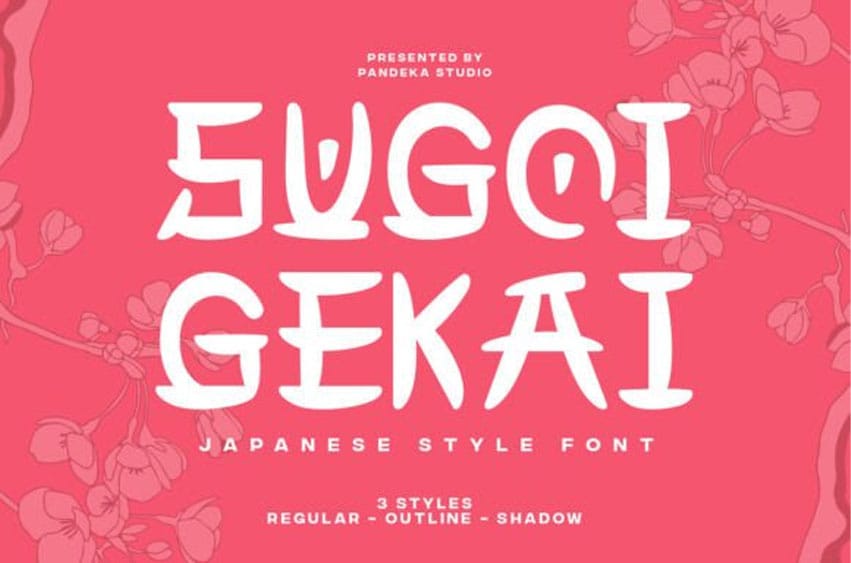
Sugo Gekai Font Bring the essence of Japan and China into your designs with Sugoi Gekai, a beautifully crafted typeface that blends the charm of traditional Japanese and Chinese calligraphy with a modern, stylish touch.
With its 3 unique styles – Regular, Shadow, and Outline, this font is perfect for projects that seek a cultural yet elegant and versatile aesthetic.